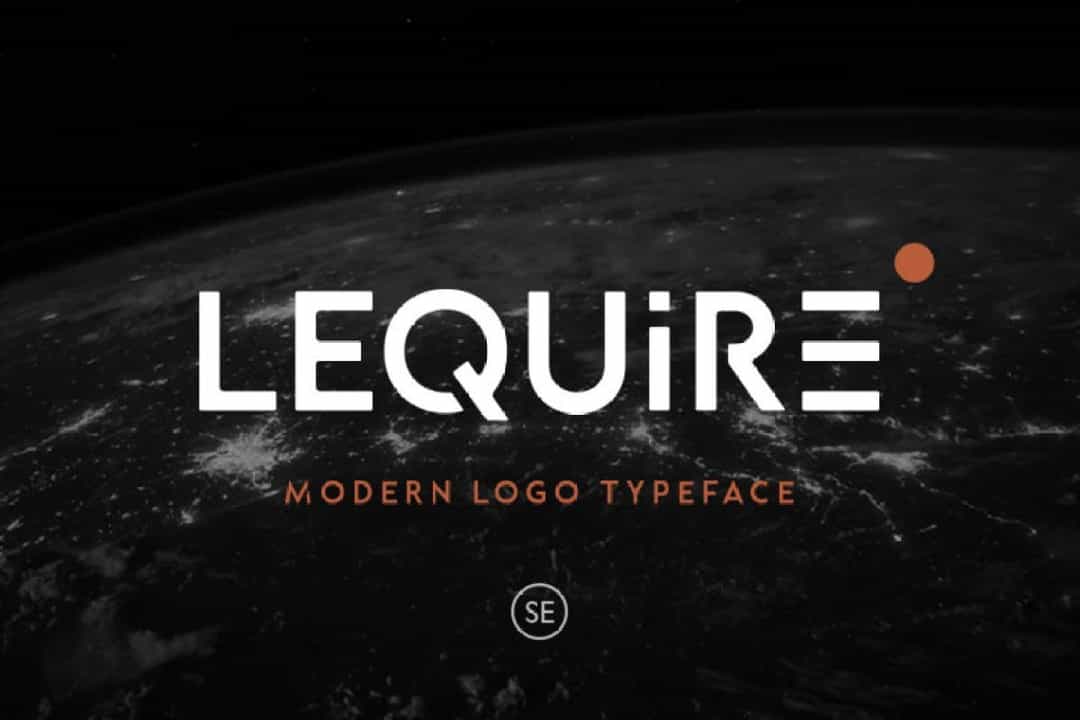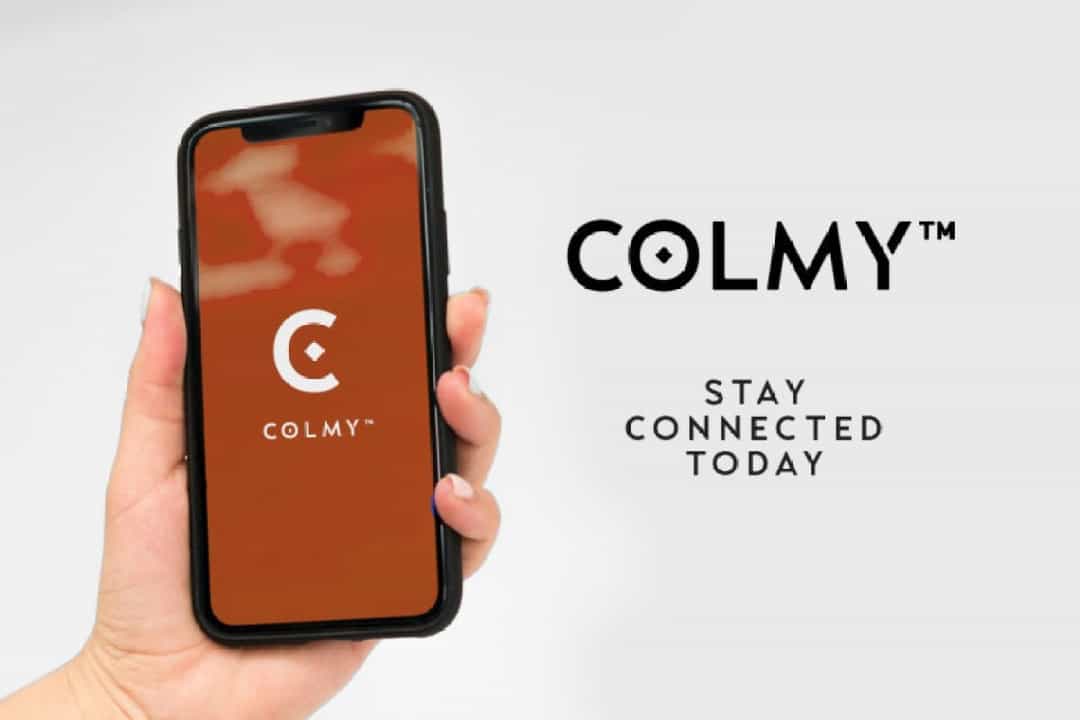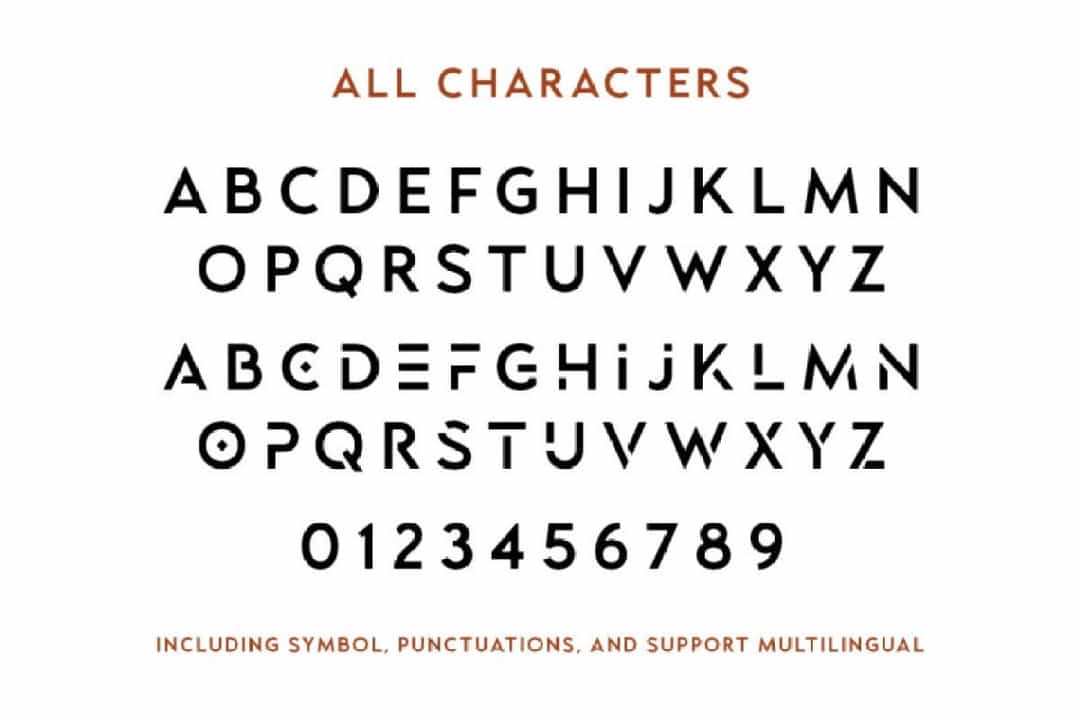
Lequire is a font with the sans base that has the bold and italicized lower case type that will revamp your design with hi-tech and modern looks. Perfect for logo design and any other use you may need it for. By combining the lower case and the upper case letters in your logo, it will become more recognizable. Also, this font has the outline style which I like.